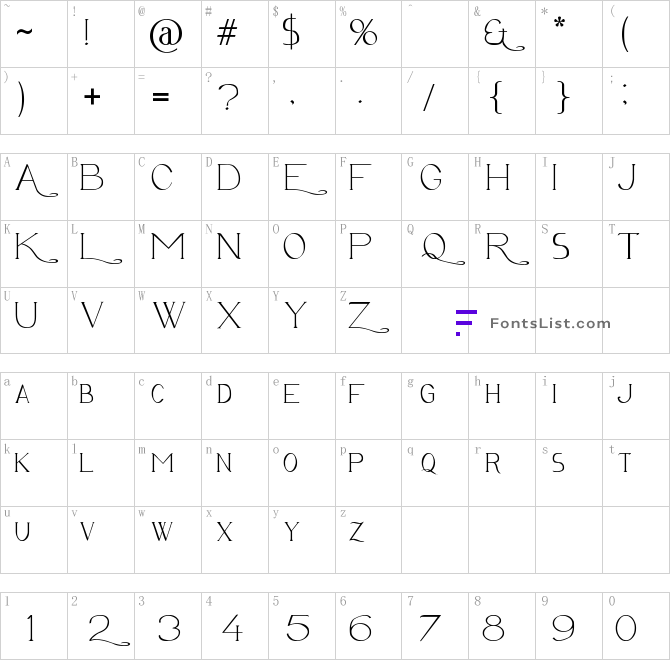
• Font Name:Avanti
• Full Name:Avanti Serif Regular
Avanti-Serif-Regular.ttf is a very beautiful artistic font, Avanti-Serif-Regular.ttf is widely used in the design and printing of various books and pictures,Avanti-Serif-Regular.ttf has a strong visual impact,Avanti-Serif-Regular.ttf is a commonly used font in newspapers, magazines and books, and is used in posters, e-commerce Poster design, store design, logo design, font design and other fields.Avanti-Serif-Regular.